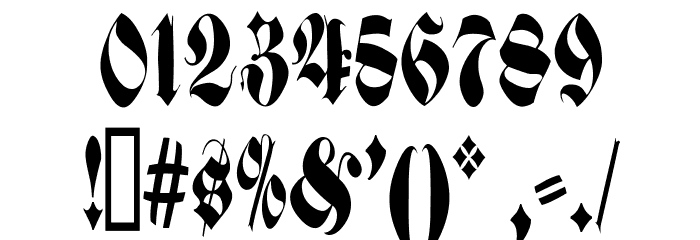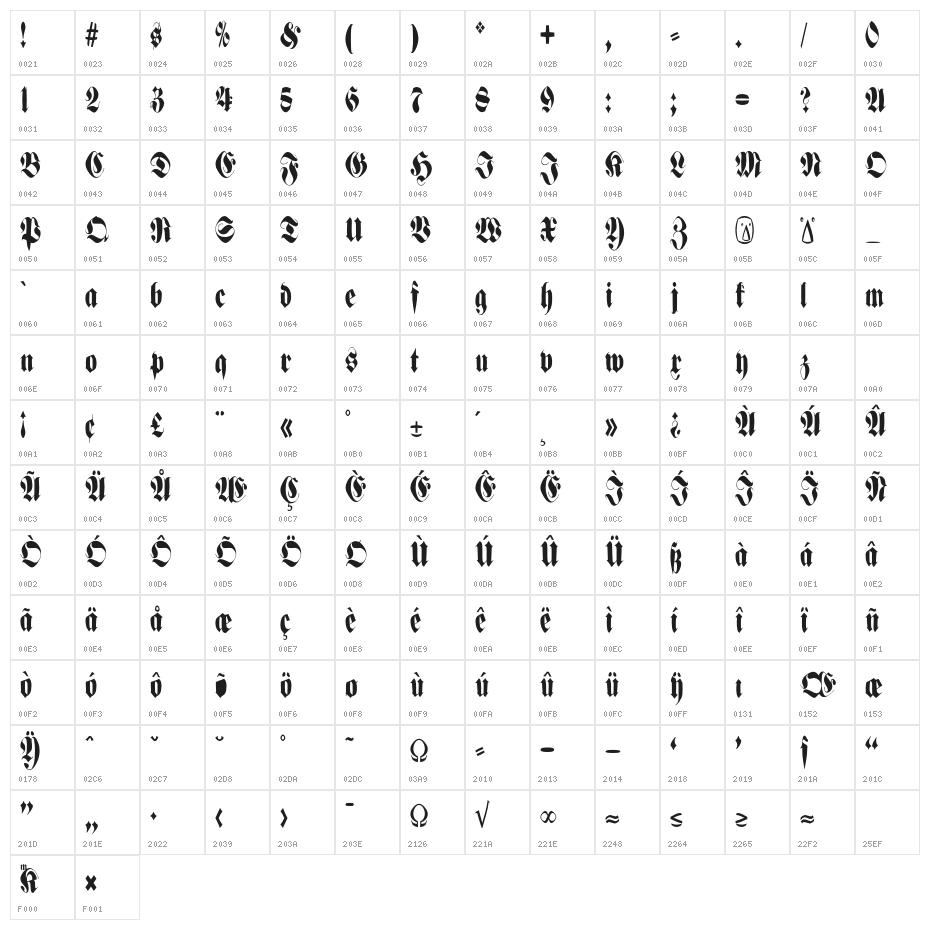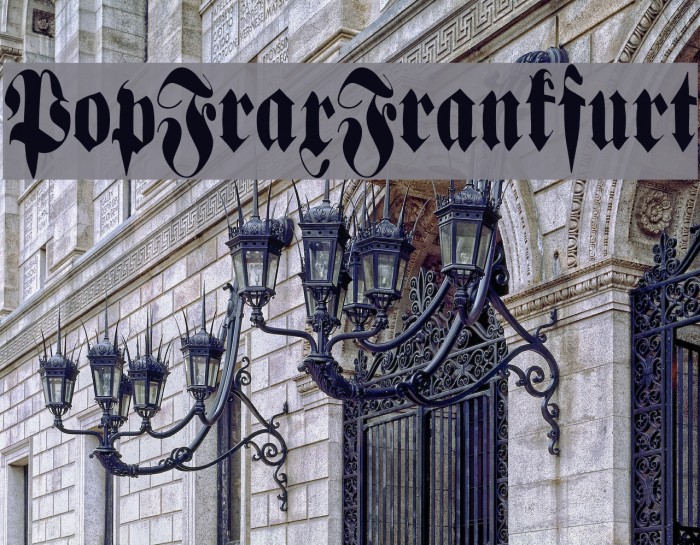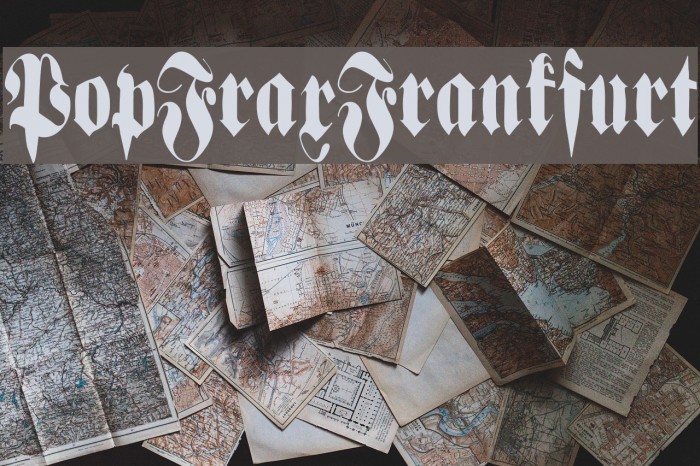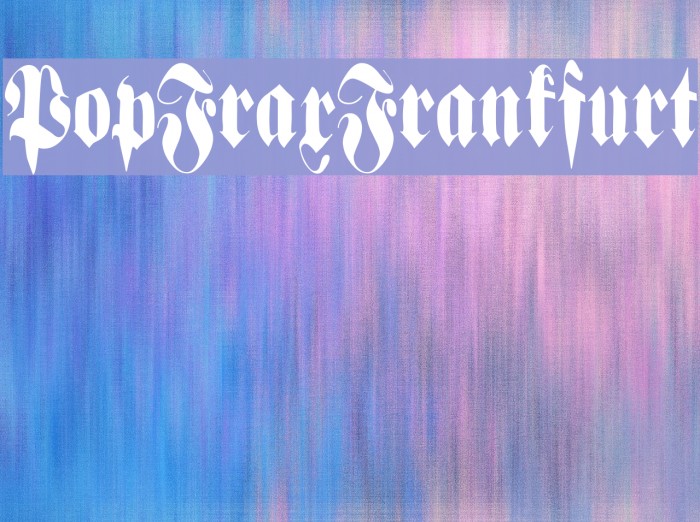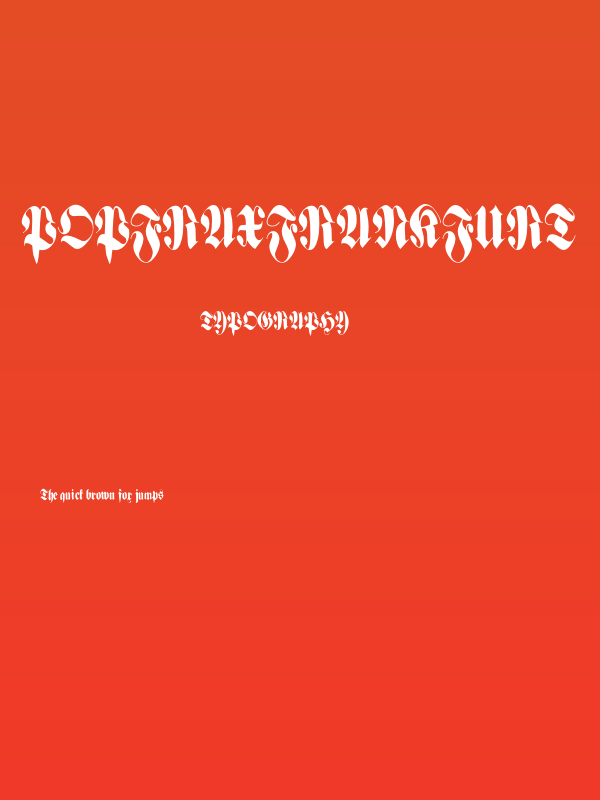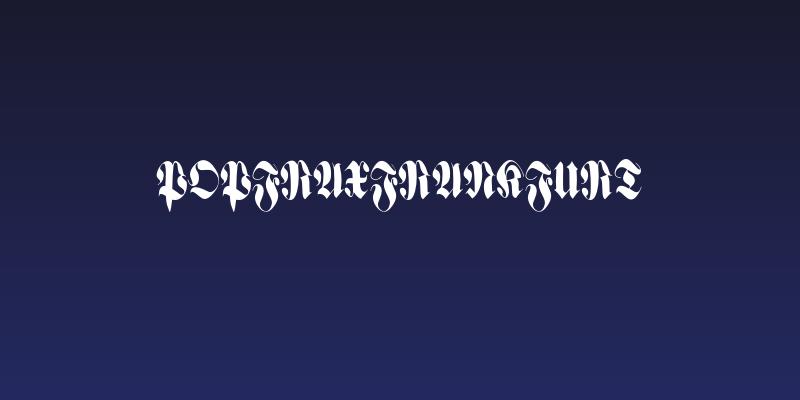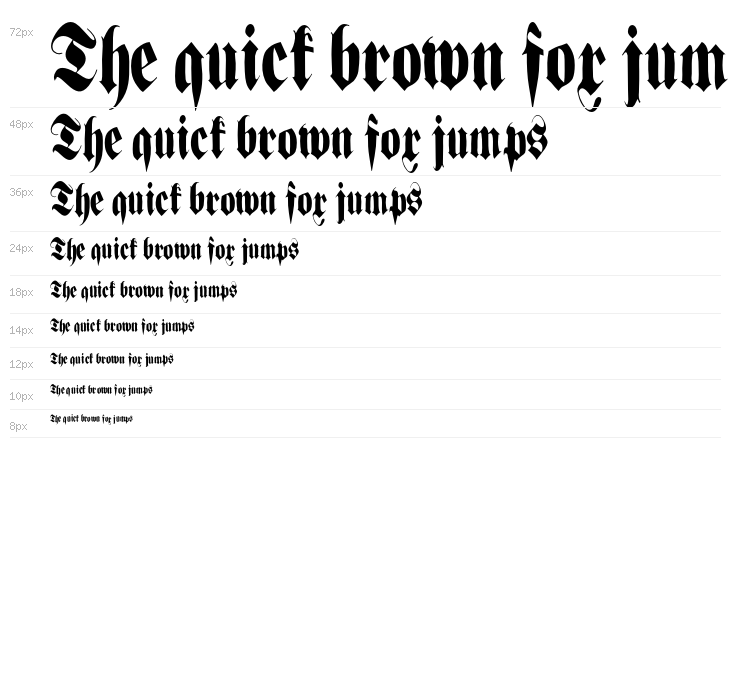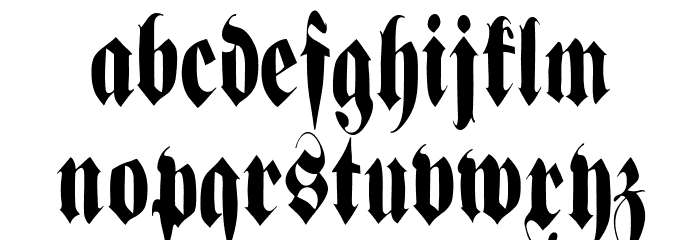
PopFraxFrankfurt Font
PopFraxFrankfurt Description
This font exudes a classic and ornate style, reminiscent of traditional blackletter typography. The characters are bold and intricate, with elaborate flourishes and sharp angles that give it a distinct Gothic appearance. The uppercase letters are particularly decorative, featuring dramatic curves and pointed serifs. The lowercase letters maintain the same level of detail, with a consistent stroke width that adds to the font's cohesive look. Numbers and special characters are equally stylized, ensuring a uniform aesthetic across all glyphs. This font's historical and artistic flair makes it suitable for projects that require a touch of elegance and tradition.